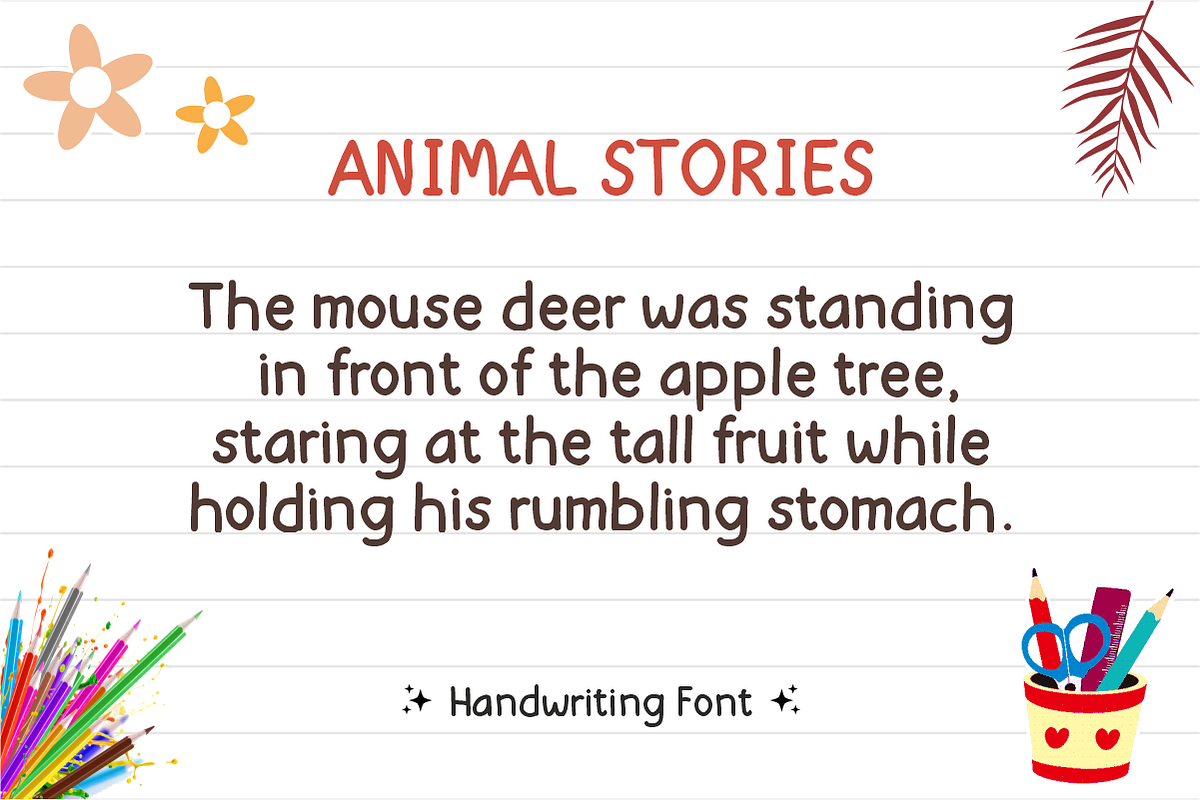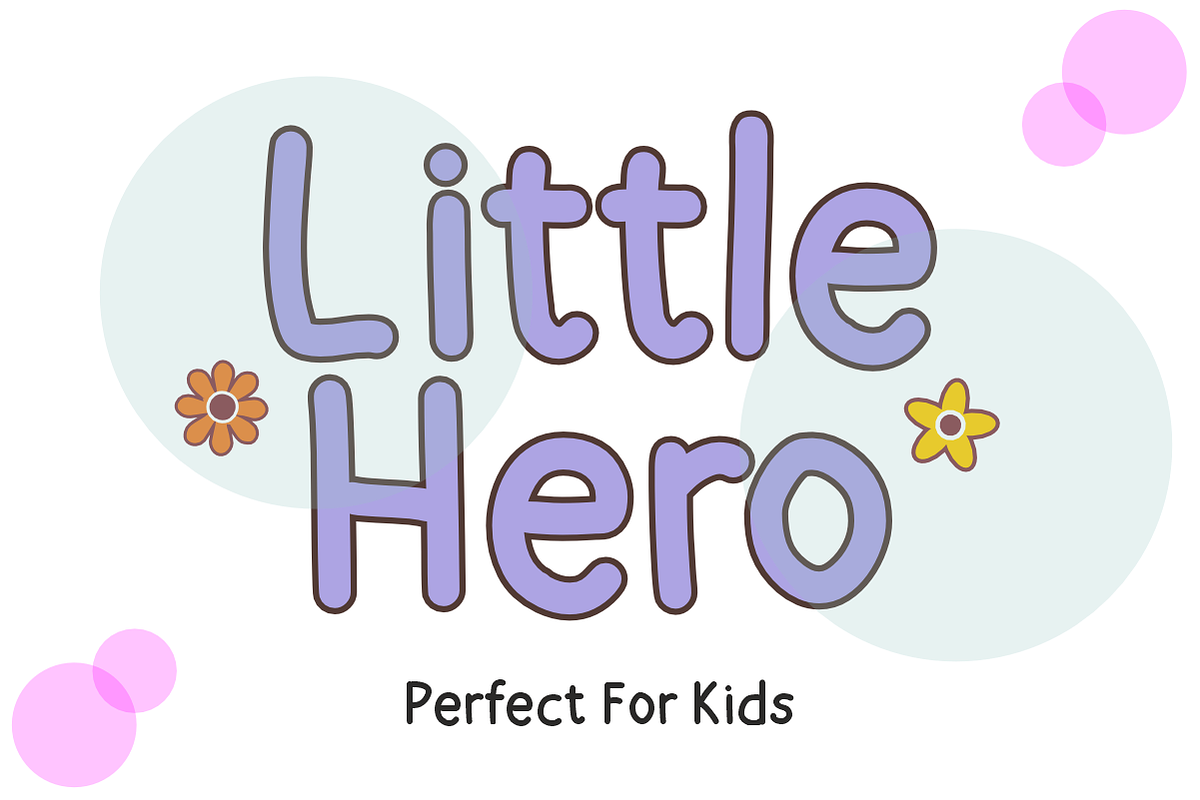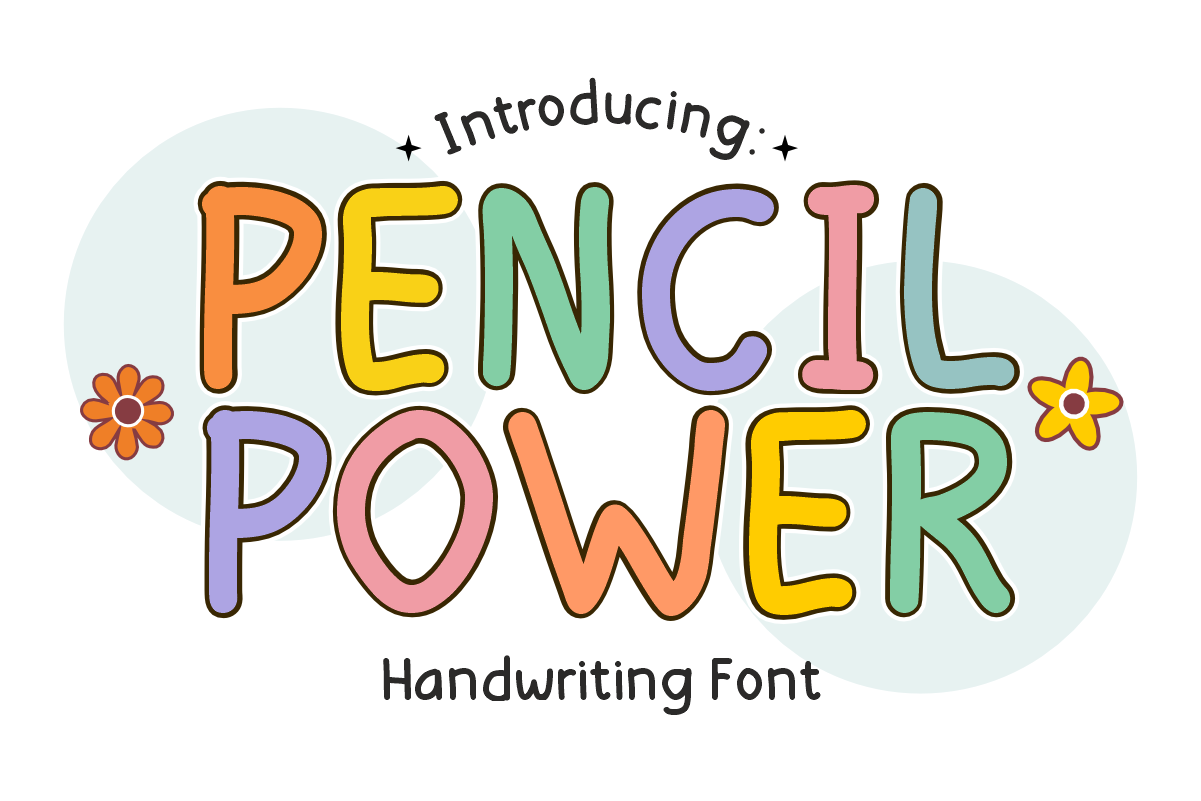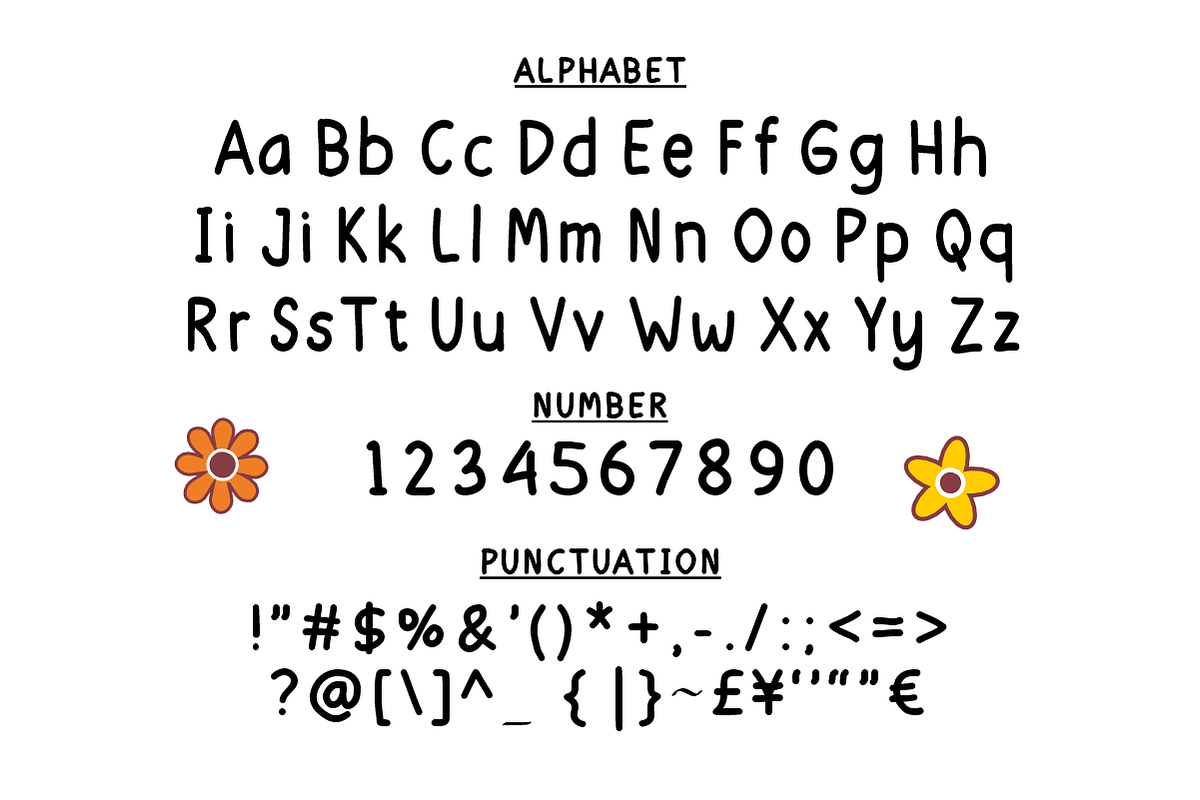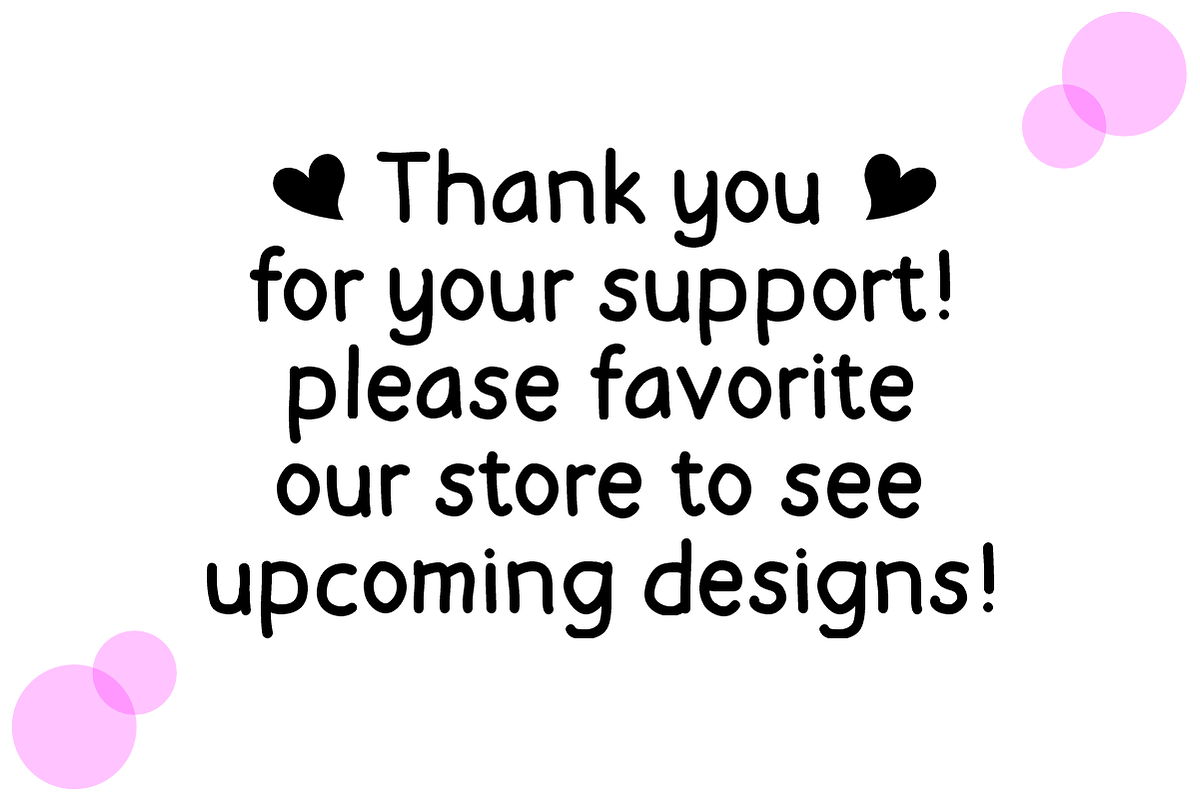
Pencil Power - Handwriting Font
Ready to add a dose of pure joy and heartwarming charm to your designs? Pencil Power is a premium handwritten display font featuring a wonderfully casual, rounded, and quirky look. Inspired by playful school-day doodles and trendy retro aesthetics, this font brings an instant friendly vibe and effortless personality to any project.
It’s sweet, it’s bubbly, and it’s perfectly crafted for creators who want their designs to feel cozy, inviting, and completely unique!
✨ What’s Packed in the Sweet Kit:
🔠 *Cute Uppercase Letters (A-Z)** – Bold, puffy, and full of playful character.
🔡 *Charming Lowercase Letters (a-z)** – Smooth, matching casual handwritten glyphs. 🔢 *Matching Numbers (0-9)** – Perfect for birthdays, planner dates, and countdowns.
🔣 *Simple Symbols & Punctuation** – Essential basics to wrap up your sweet phrases.
🎯 Perfect For Your Next Cute Creation:
\* 🎒 School, Teacher Resources, Classroom Decor & Educational Printables
\* 🎂 Kids' Birthday Invitations, Greeting Cards & Baby Shower Stationary
\* 🎨 Clean SVG Cut Files for Cricut & Silhouette (Super smooth lines for easy cutting!)
\* 👕 Sweet T-Shirts, Cozy Hoodies, Nursery Decor & Baby Apparel Brands
\* 🥤 Trendy Stickers, Planners, Journals, Tote Bags, and Fun Instagram Quotes